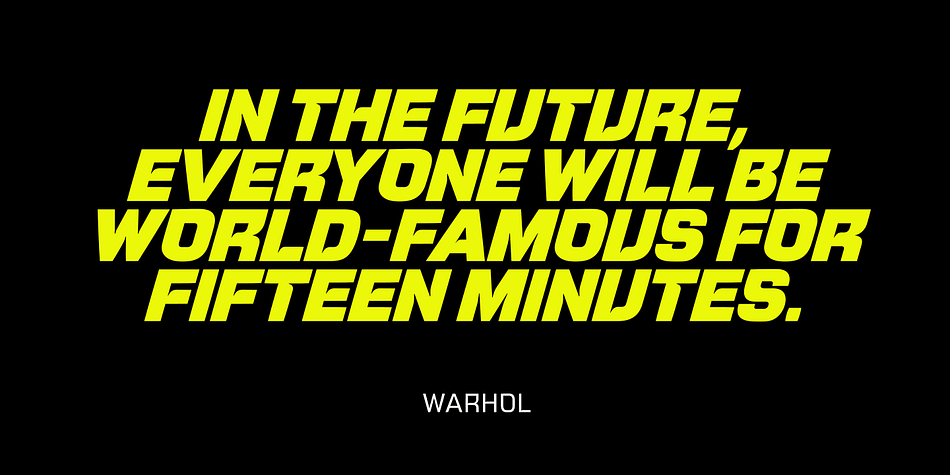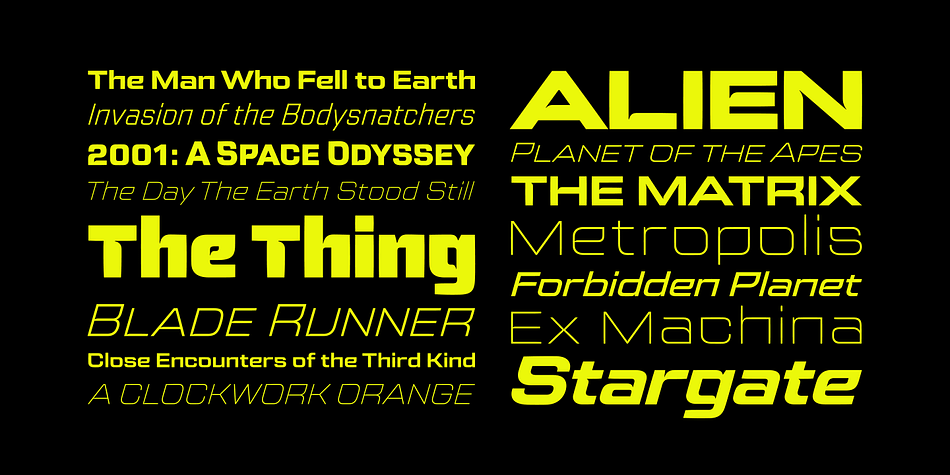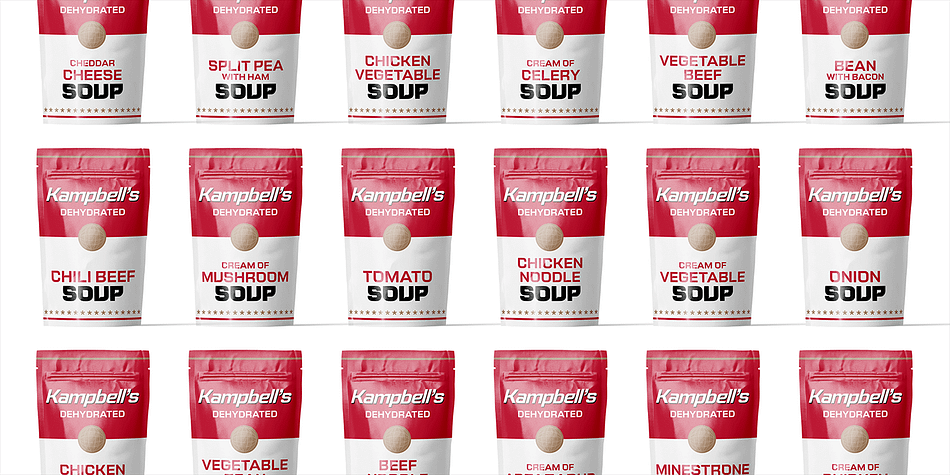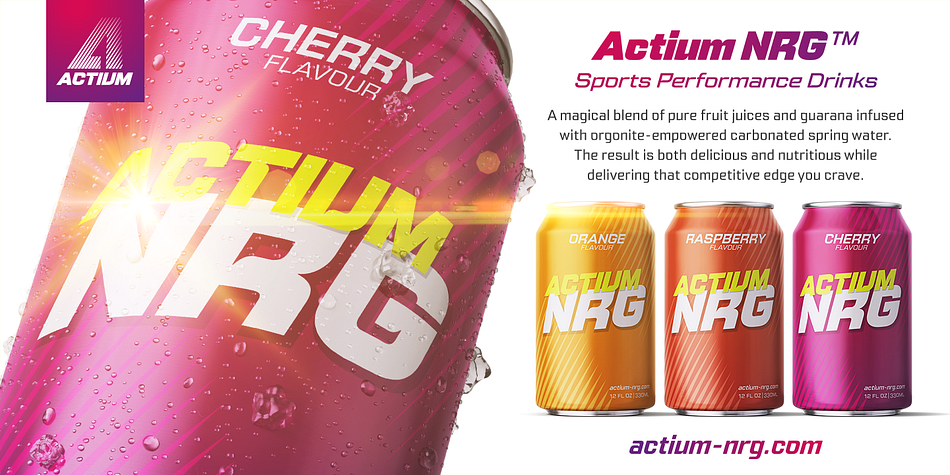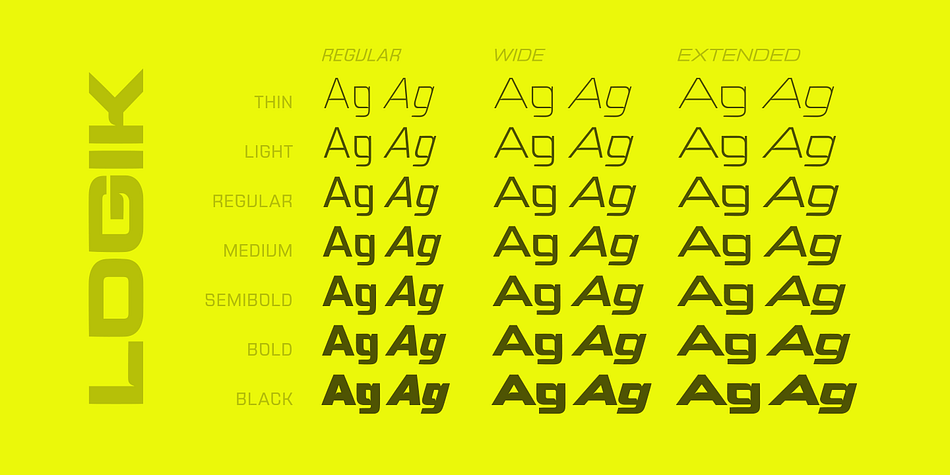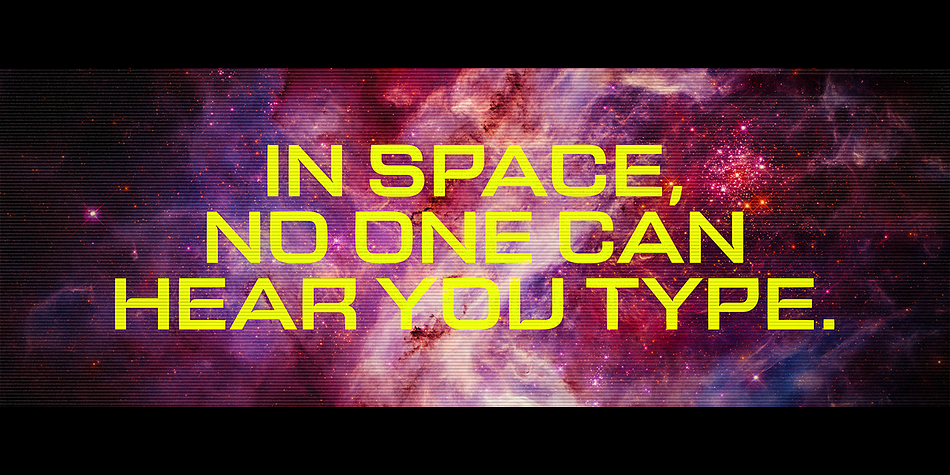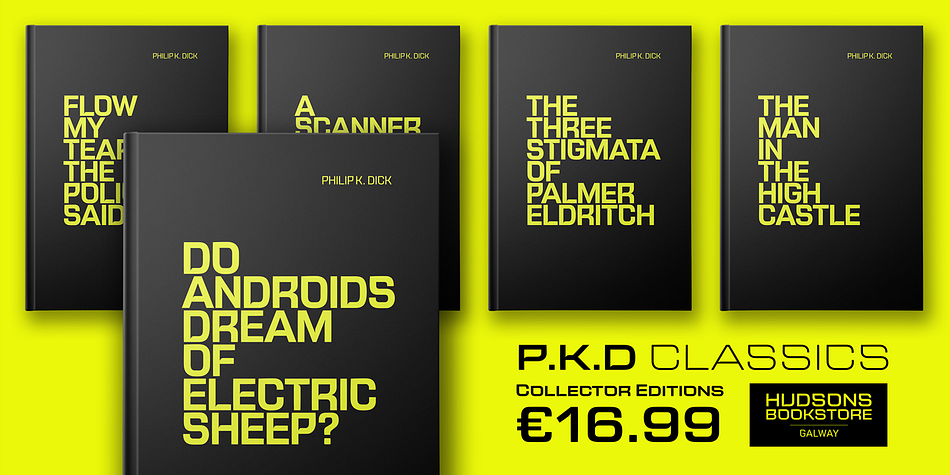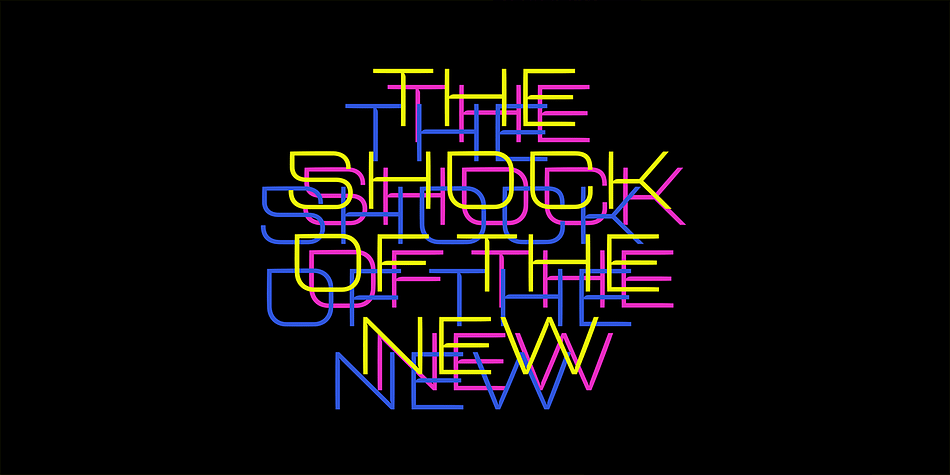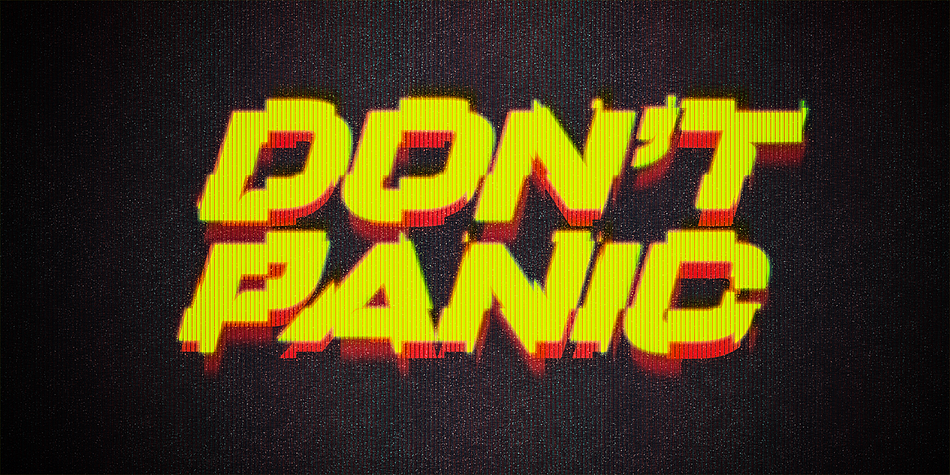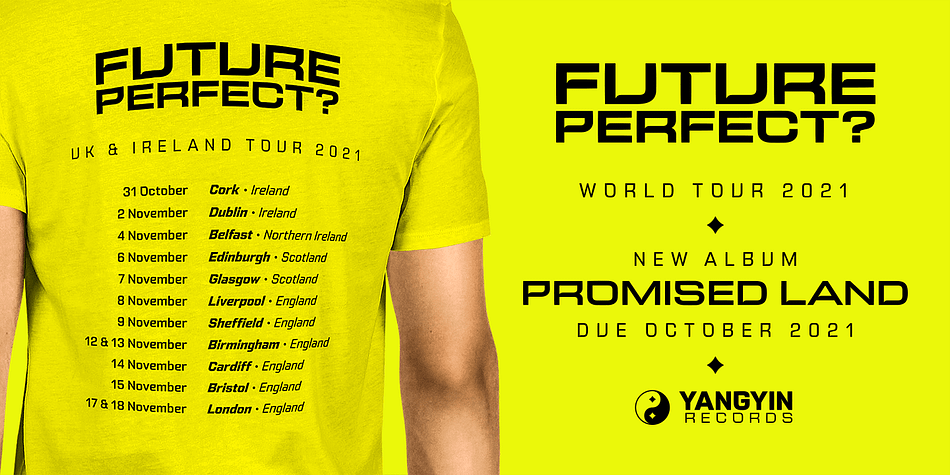
Designed by Paulo Goode, Logik is a display sans font family. This typeface has forty-two styles and was published by Paulo Goode.
Logik is a futuristic square sans serif typeface. Its personality is defined by squared-off corners that you would normally expect to be rounded, this sharpness gives the glyphs an eccentricity that the eye quickly adjusts to. Sharp, incised/stylised ink traps along with slightly tapered/curved horizontals and verticals add to the character of each letterform. These subtleties combine to give Logik a distinctively futuristic aura. Logik’s main use would be for headlines, short runs of text, branding and display purposes – ideally suited for film and book titles, Logik could be widely used for sports, media and recreation purposes also.
Logik comes in 7 weights (from Thin to Black) across 3 widths – Regular, Wide, and Extended. Each font covers all European Latin-based languages and includes Old Style Figures, Small Caps, and some Case-Sensitive Forms.